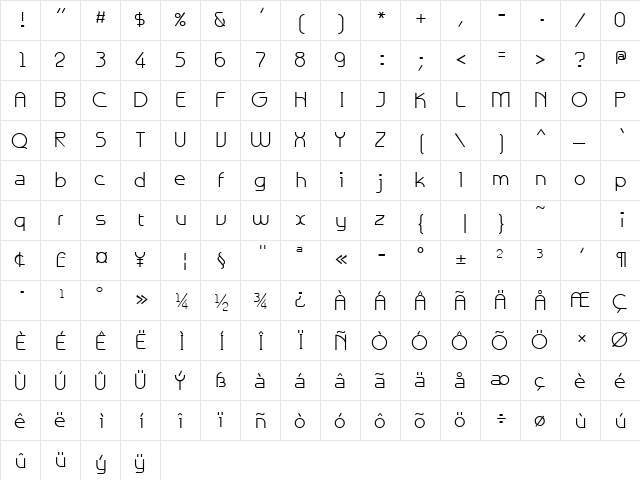
Galexica Regular Font Preview
Galexica Regular
Galexica Regular Font Details
Design Context for Galexica Typeface
Galexica offers clean, dependable letterforms without strong stylistic allegiance, making it a practical choice for designers who need flexibility.